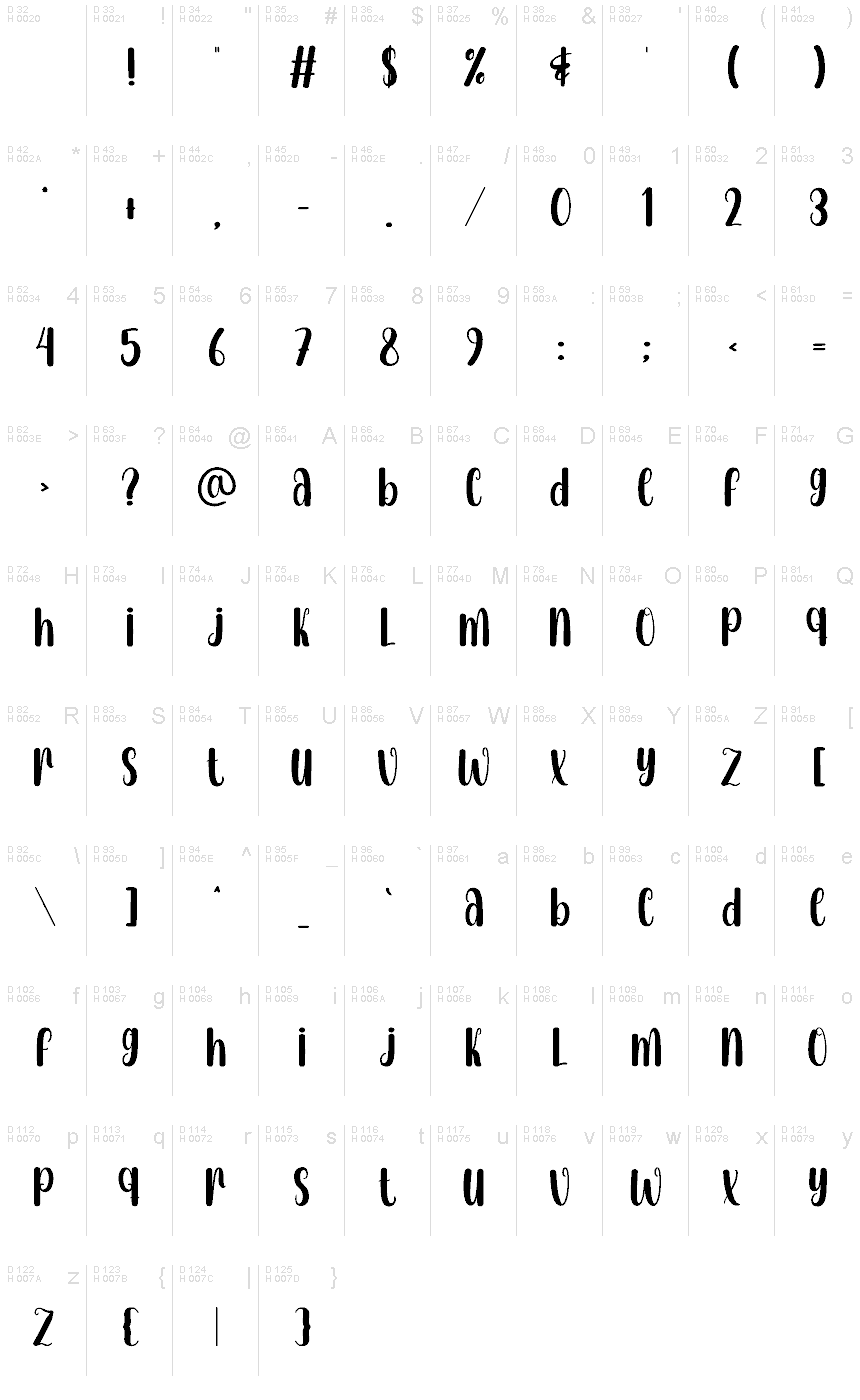
New Easter
New Easter font is a smooth brush typeface designed by Andi Moz. The condensed width letters present readers with a clean modern look suitable for different types of written texts. Communicate elegance, fun, and casual daily vibes within seconds with this wonderful collection of numbers, symbols, punctuation marks, and characters.
Users who love putting the typography work will find exciting options when applying this free handwritten font to projects such as greeting cards for birthdays or Easter holidays. Additionally available choices are billboards, home decor items (walls or mugs), branding materials (logos and business cards), event invitations or posters, tattoos. In addition to other more common uses that include headline designs for newspapers and magazines in both printout copies and online viewing platforms.